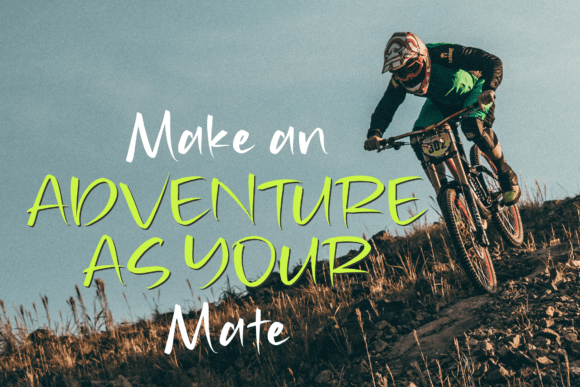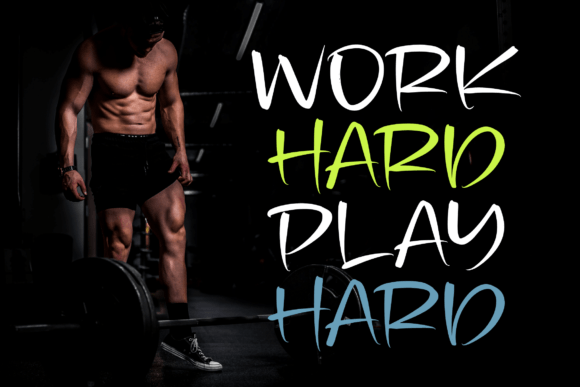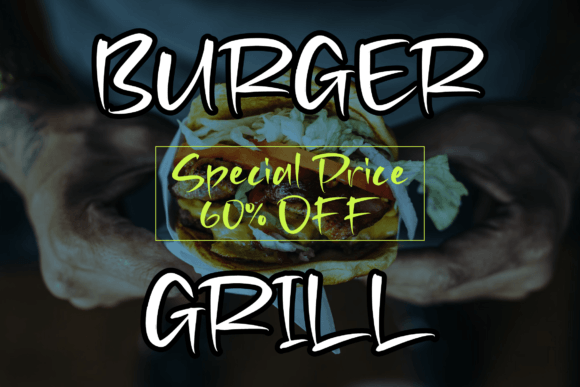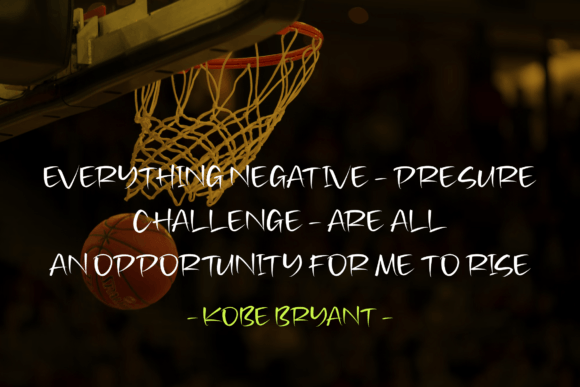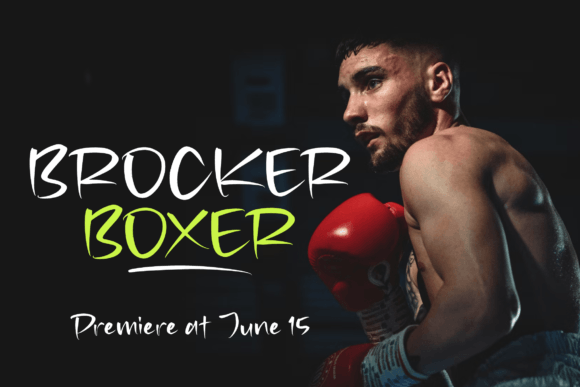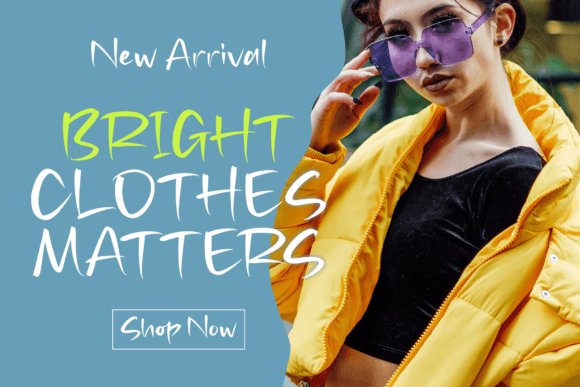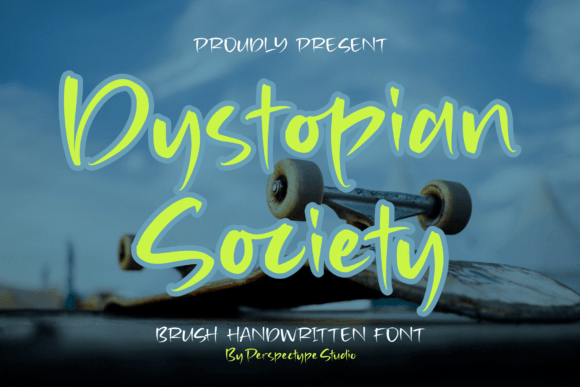
Dystopian Society Font: A Brush Handwritten Font for Your Creative Projects
In the world of design, fonts play a crucial role in conveying the tone and aesthetic of a project. For designers and crafters looking to add a touch of edginess and sophistication to their work, the Dystopian Society Font is an excellent choice. This brush handwritten font is perfect for a wide range of projects, from logos and branding to homeware designs, product packaging, and more.
What is Dystopian Society Font?
Dystopian Society Font is a unique and stylish brush handwritten font that is designed to give your projects a bold and eye-catching look. With its rough, hand-painted texture, this font is perfect for designers who want to add a touch of grit and urban charm to their work. Whether you’re working on a logo, a poster, or a product design, the Dystopian Society Font is sure to make a statement.
Features of Dystopian Society Font
- Brush Handwritten Style: The Dystopian Society Font features a distinctive brush handwritten style that gives it a rough, organic feel.
- High-Quality Design: The font is designed with high-quality craftsmanship in mind, ensuring that it looks great in any size or application.
- Versatile: The Dystopian Society Font is suitable for a wide range of projects, from logos and branding to homeware designs, product packaging, and more.
- Easily Customizable: The font is easy to customize, allowing you to adjust the size, color, and style to suit your project’s needs.
Uses for Dystopian Society Font
The Dystopian Society Font is perfect for a wide range of projects, including:
- Logos and Branding: Use the Dystopian Society Font to create a bold and eye-catching logo that sets your brand apart.
- Homeware Designs: Add a touch of edginess to your homeware designs, such as cushions, mugs, and tote bags.
- Product Packaging: Use the Dystopian Society Font to create eye-catching product packaging that stands out on store shelves.
- Mugs and T-Shirts: Create unique and stylish designs for mugs and t-shirts that are perfect for everyday wear.
- Posters and Flyers: Use the Dystopian Society Font to create bold and eye-catching posters and flyers that grab attention.
- Book Covers and Invitation Cards: Add a touch of sophistication to your book covers and invitation cards with the Dystopian Society Font.
Why Choose Dystopian Society Font?
There are many reasons why designers and crafters should choose the Dystopian Society Font for their projects. Here are just a few:
- Unique Style: The Dystopian Society Font features a unique and stylish brush handwritten style that sets it apart from other fonts.
- High-Quality Design: The font is designed with high-quality craftsmanship in mind, ensuring that it looks great in any size or application.
- Versatile: The Dystopian Society Font is suitable for a wide range of projects, making it a great addition to any designer’s toolkit.
- Easily Customizable: The font is easy to customize, allowing you to adjust the size, color, and style to suit your project’s needs.
In conclusion, the Dystopian Society Font is a versatile and stylish brush handwritten font that is perfect for designers and crafters looking to add a touch of edginess and sophistication to their projects. With its unique style, high-quality design, and ease of customization, this font is sure to become a go-to choice for a wide range of applications. Whether you’re working on a logo, a poster, or a product design, the Dystopian Society Font is an excellent choice.